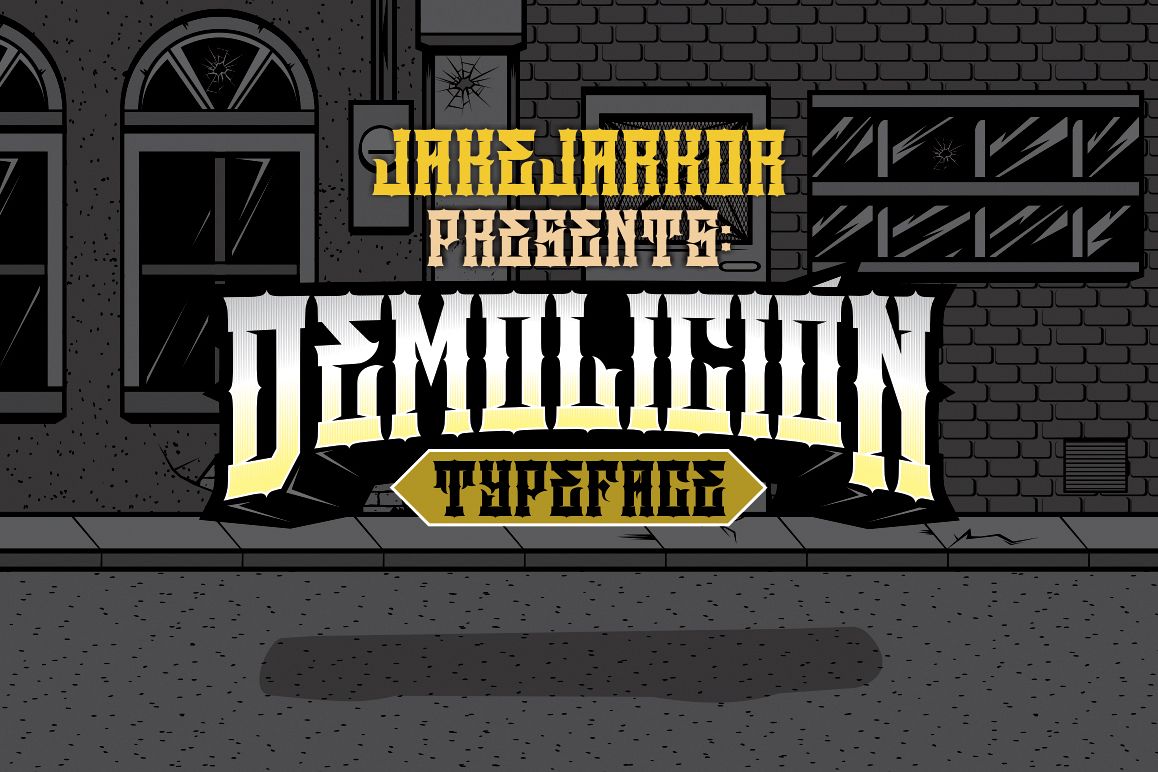
DEMOLICIÓN
JKR - DEMOLICIÓN
Jake Jarkor Presents:
DEMOLICIÓN is a typeface inspired in tattoo letters, chicano culture and street art. It works well with normal size text, but it works even better for large displays, short words, or even just to incorporate a few or single characters in a design. Suitable for many creative products & tattoo designs, like posters, t-shirt, street wear, logo, signage, headlines, etc.
Jake Jarkor Presenta:
DEMOLICIÓN es una tipografía inspirada en el tatuaje, la cultura chicana y el arte de la calle. Funciona bien con el texto de tamaño normal, pero funciona incluso mejor para diseños de gran tamaño, palabras cortas, o incluso sólo para incorporar un par de caracteres individuales en el diseño. Es una tipografía muy conveniente para productos creativos y diseños para tatuajes, como carteles, playeras, logotipo, señalización, titulares, etc.